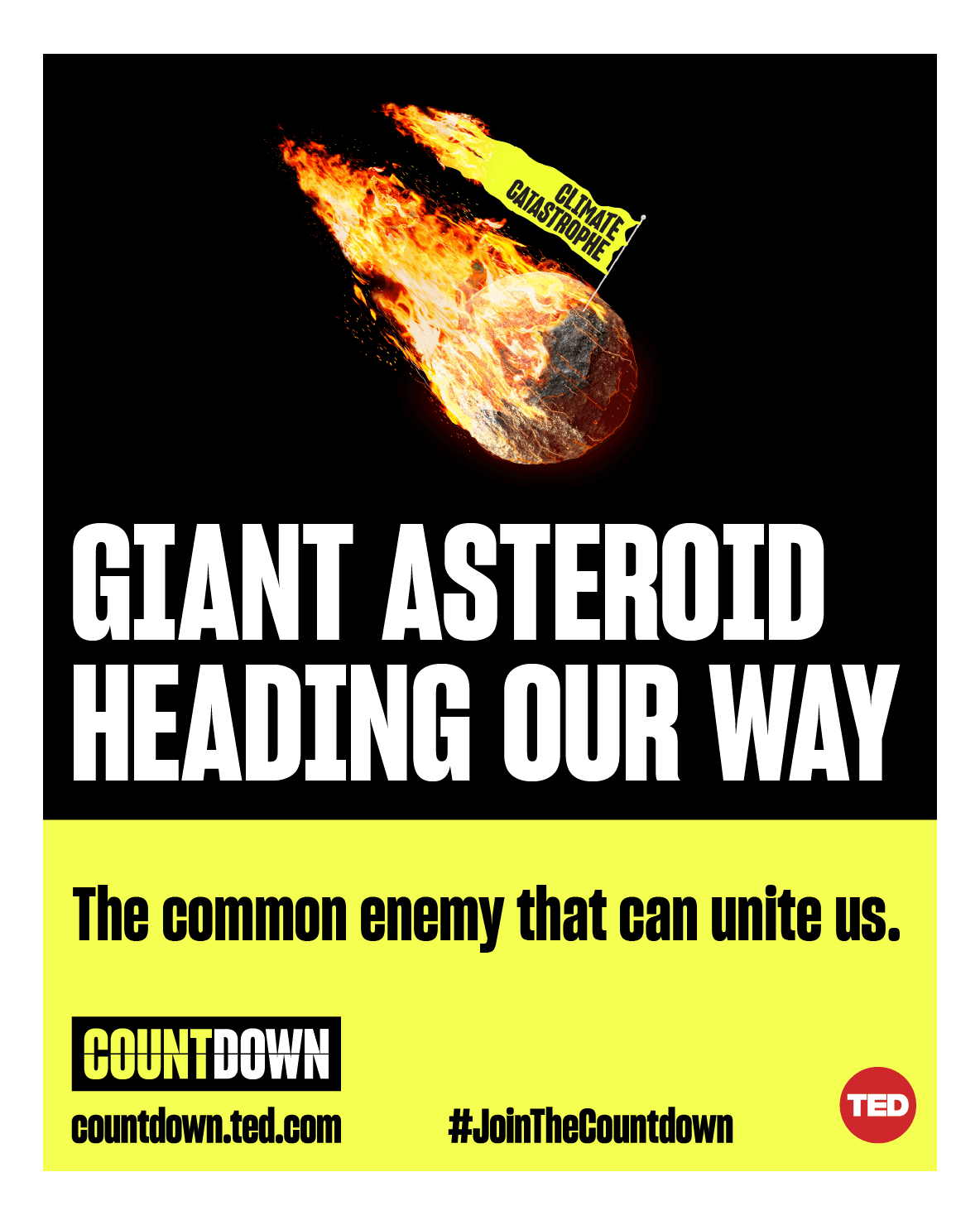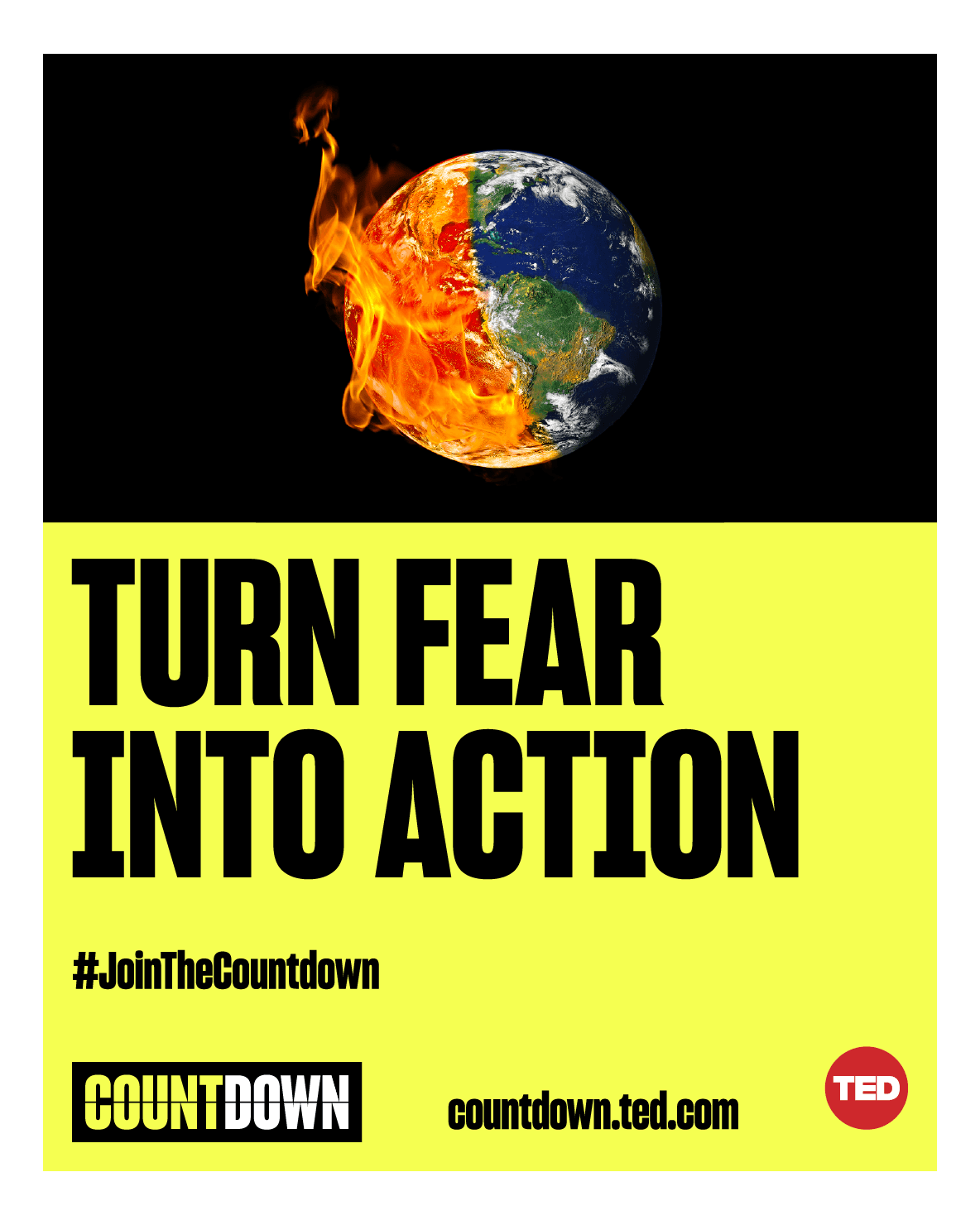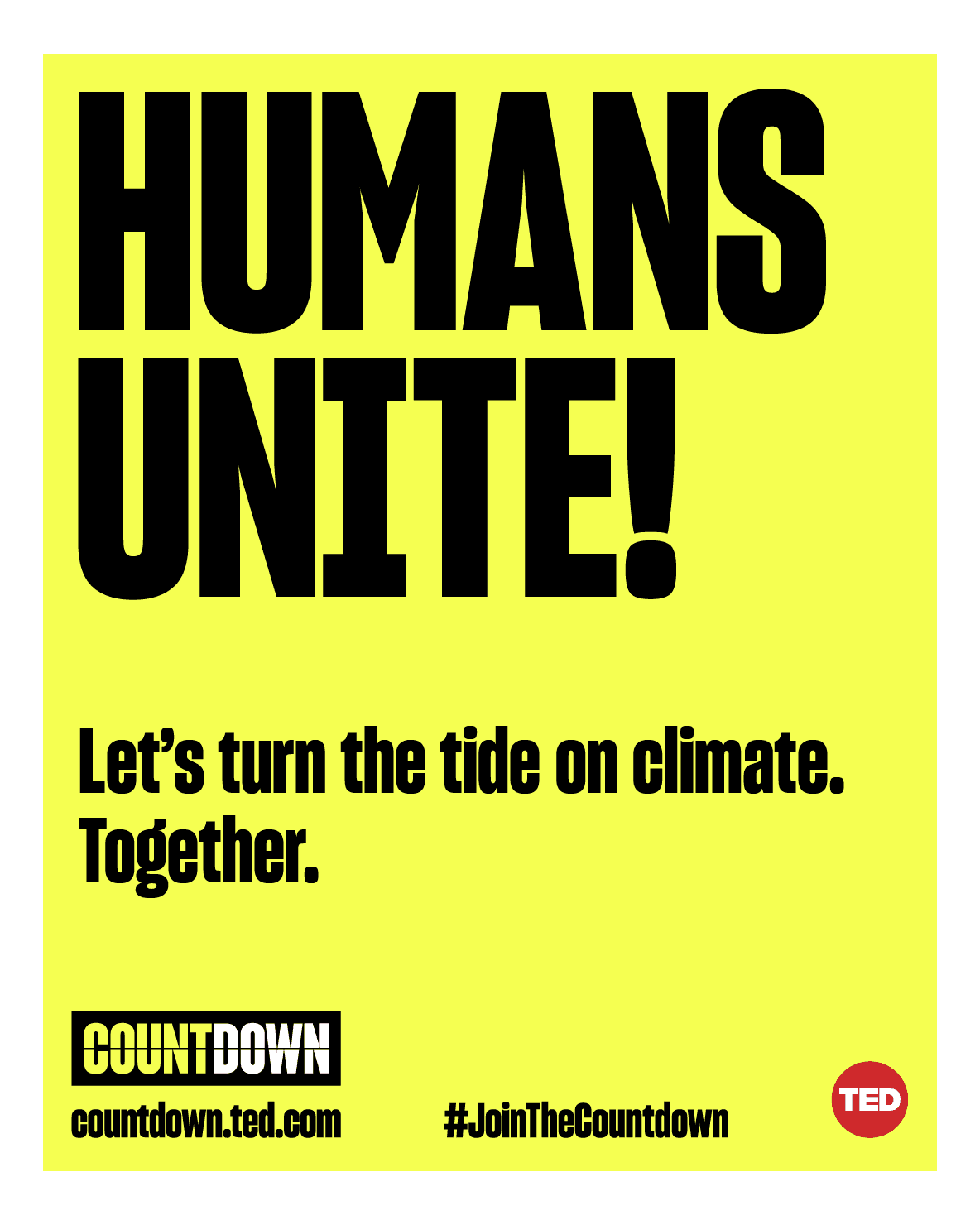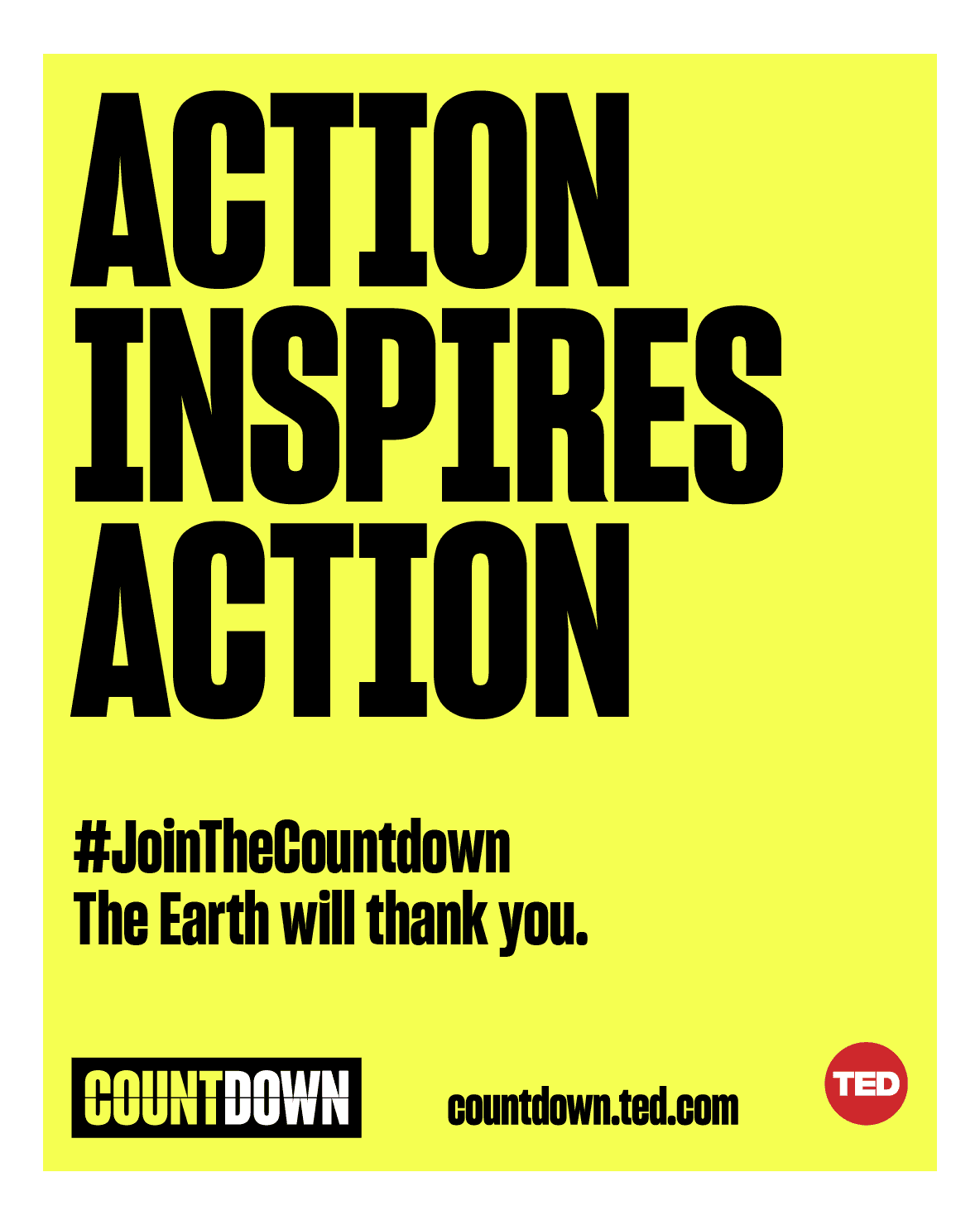
In December 2019, TED announced a new climate change initiative called Countdown, with the help of YouTube, global leaders, and nonprofit environmental groups. The movement encourages anyone, anywhere to join the countdown, get their communities involved, and contribute ideas to combat the climate crisis. The initiative is guided by these five main topics: renewable energy, infrastructure, transportation, food, and restoring ecosystems.
TED Countdown uses Sharp Grotesk as a primary typeface for its identity, educational materials, social media graphics, and more. The logotype is set in all-caps, cut horizontally down the middle to reference flip clocks. The initiative will run for a year and culminate in a global summit in October 2020, bringing together cities, companies, schools and communities around the globe to share and discuss the responses generated throughout the movement. The best proposals could be put into motion with the help of businesses, policymakers, and celebrities supporting the initiative.
Typeface: Sharp Grotesk